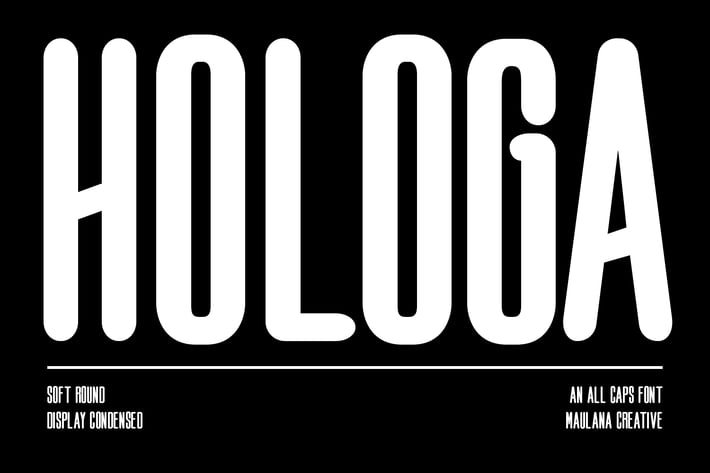
Hologa Condensed Sans Serif Font
Hologa is a condensed all caps sans serif font. With bold stroke, fun character with a bit of ligatures and alternates. To give you an extra creative work. Hologa font support multilingual more than 100+ language. This font is good for logo design, Social media, Movie Titles, Books Titles, a short text even a long text letter and good for your secondary text font with sans or serif. Make a stunning work with Hologa font.